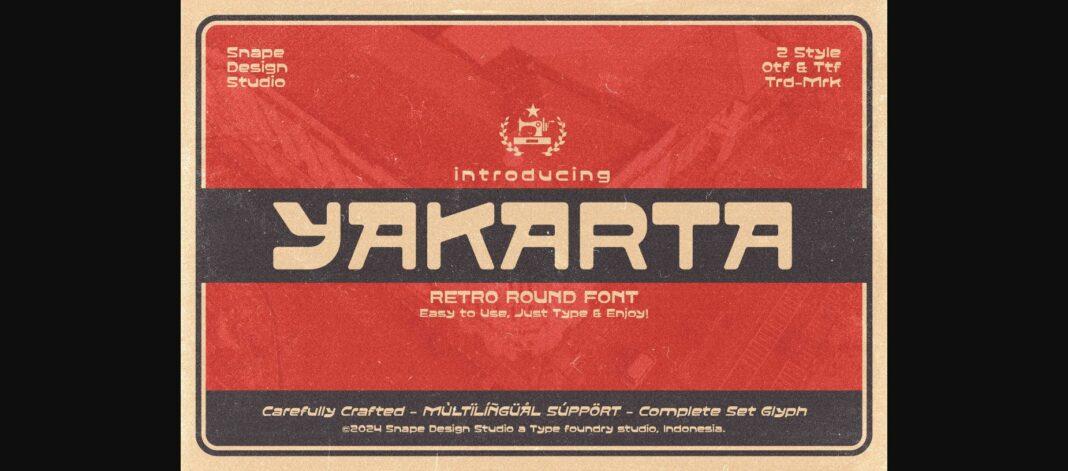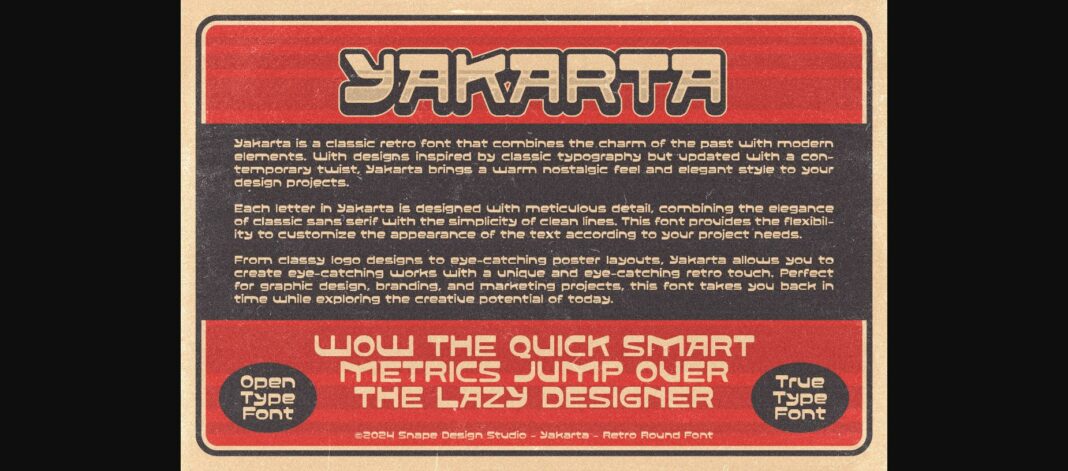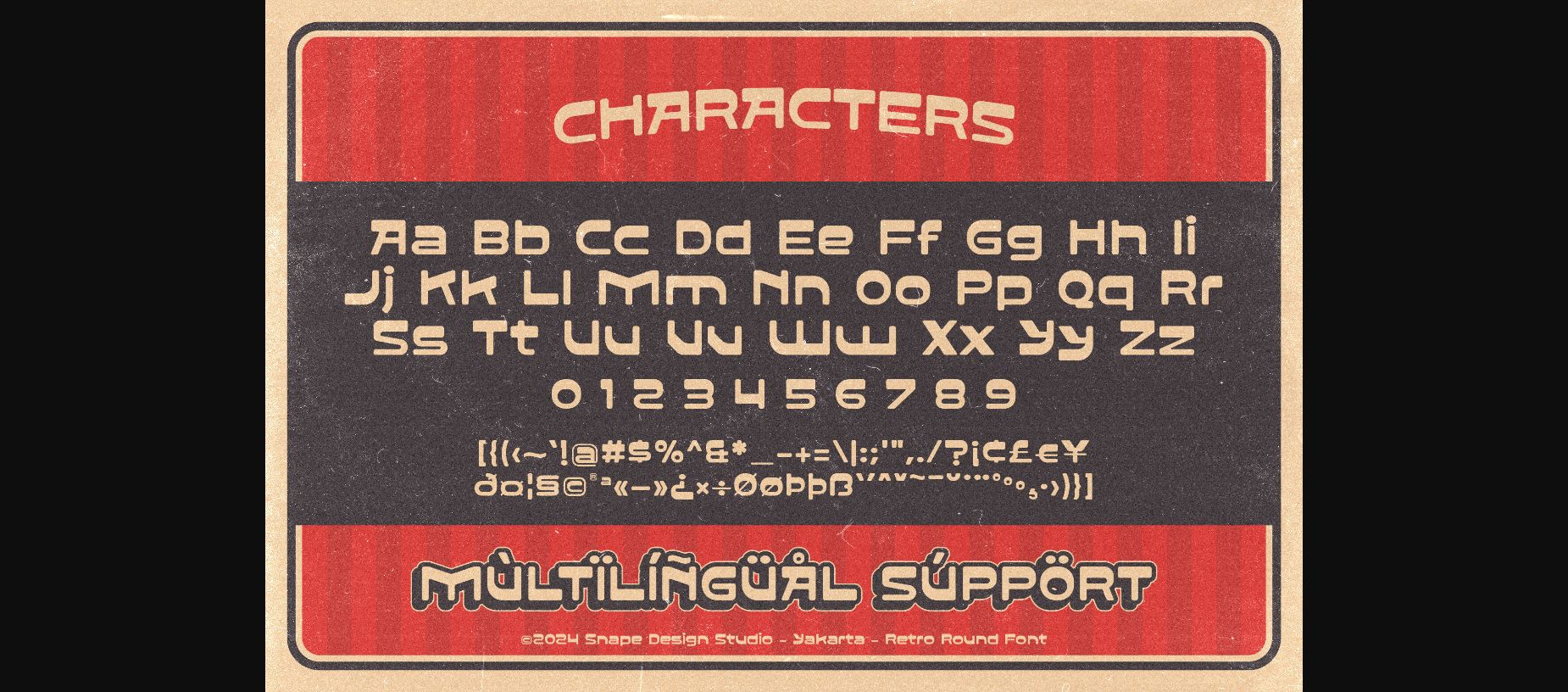
About Yakarta Font
Yakarta, a retro round font, channels nostalgic charm with its timeless design. Inspired by vintage typography, it brings a touch of classic elegance to any project, evoking memories of mid-century aesthetics. Perfect for adding a hint of nostalgia with a modern twist.